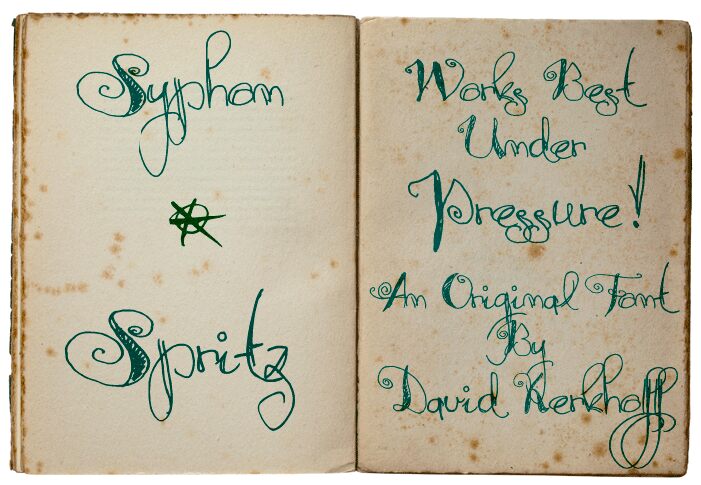
Syphon Spritz by David Kerkhoff is a free curly display font with an unruly, hand-drawn finish. Its tall, uneven letters twist into sharp hooks and loose spirals, punctuated by dark inked wedges that make the line feel theatrical and slightly strange.
It can give music posters and alternative fashion branding the same wiry, offbeat edge. Children's fantasy publishing offers a lighter setting for its exaggerated shapes. On party invitations and themed packaging, the repeated curls can echo vines, smoke, or whimsical illustrated flourishes.
Syphon Spritz